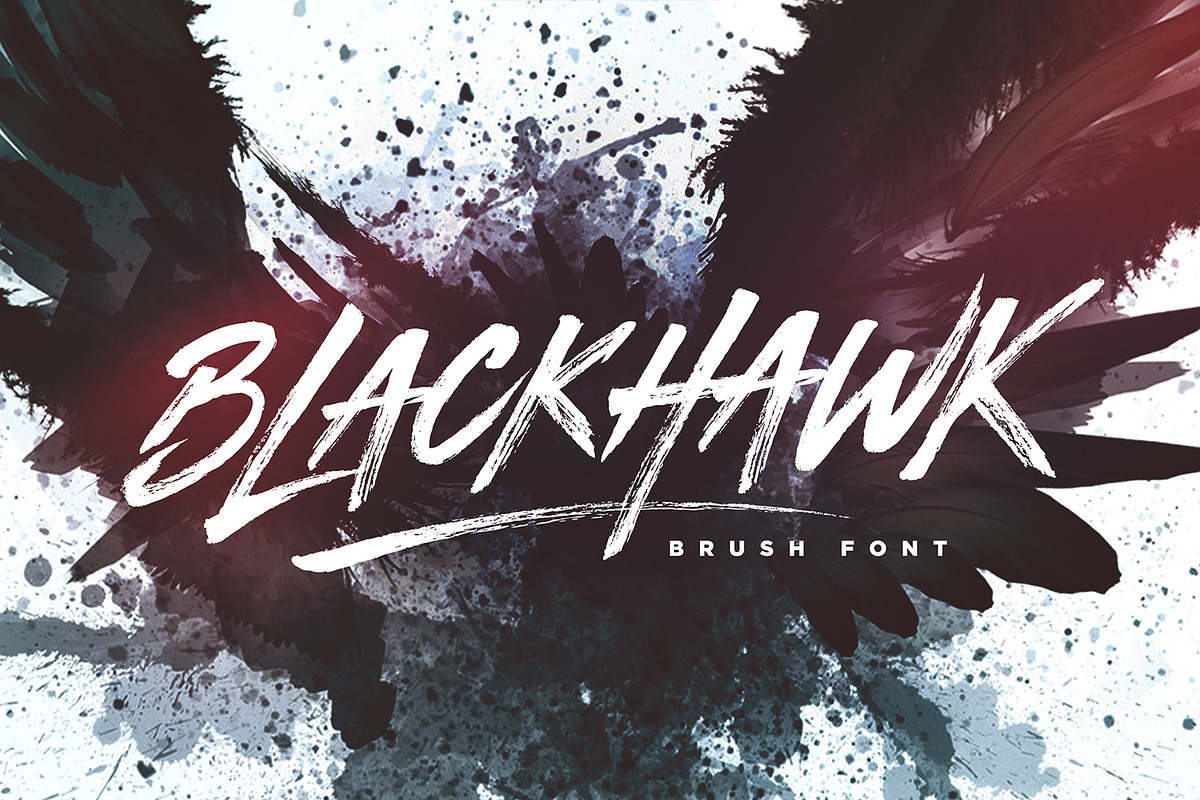
BLACKHAWK Brush Font
BLACKHAWK Brush Font by Sam Parrett is a font selected for branding, posters, packaging, typography.
- BLACKHAWK ~ A hand-made, all-capitals brush font which has a complete set of alternate A-Z characters.
- Simply switch between upper & lower case to access the alternates.
- (Tip: Try mixing up both upper and lowercase characters in a word to achieve the best text layout).
- BLACKHAWK Italic ~ A slanted version of the regular font, creating faster movement in the characters.
BLACKHAWK Brush Font by Sam Parrett fits naturally into Branding, posters, packaging, typography.